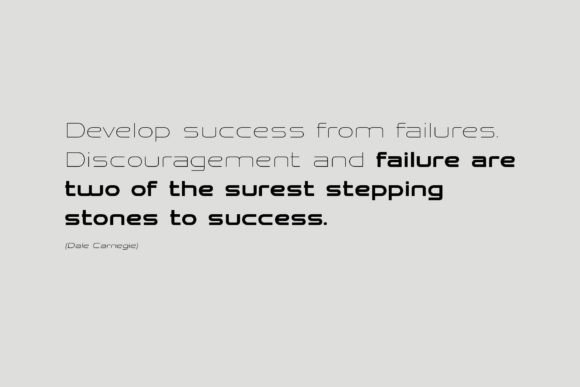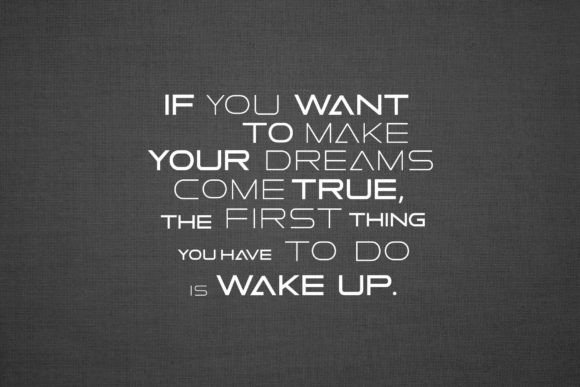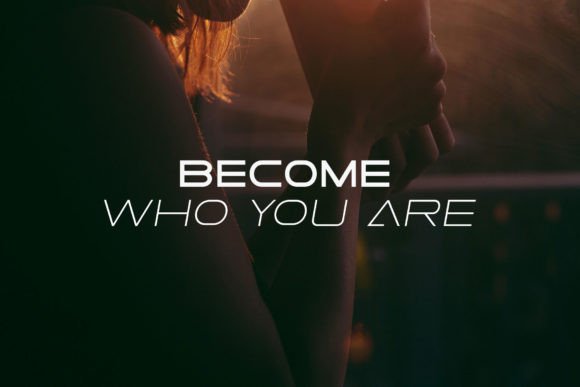
Introduction to Golden Grotesque Font
Golden Grotesque is a classic sans serif font.
πŸ‘€ Author moriztype
Why Choose Golden Grotesque Font?
Golden Grotesque Font offers exceptional quality and versatility, making it a valuable addition to your design toolkit. Whether you’re creating for personal projects or commercial use, Golden Grotesque Font delivers professional results.